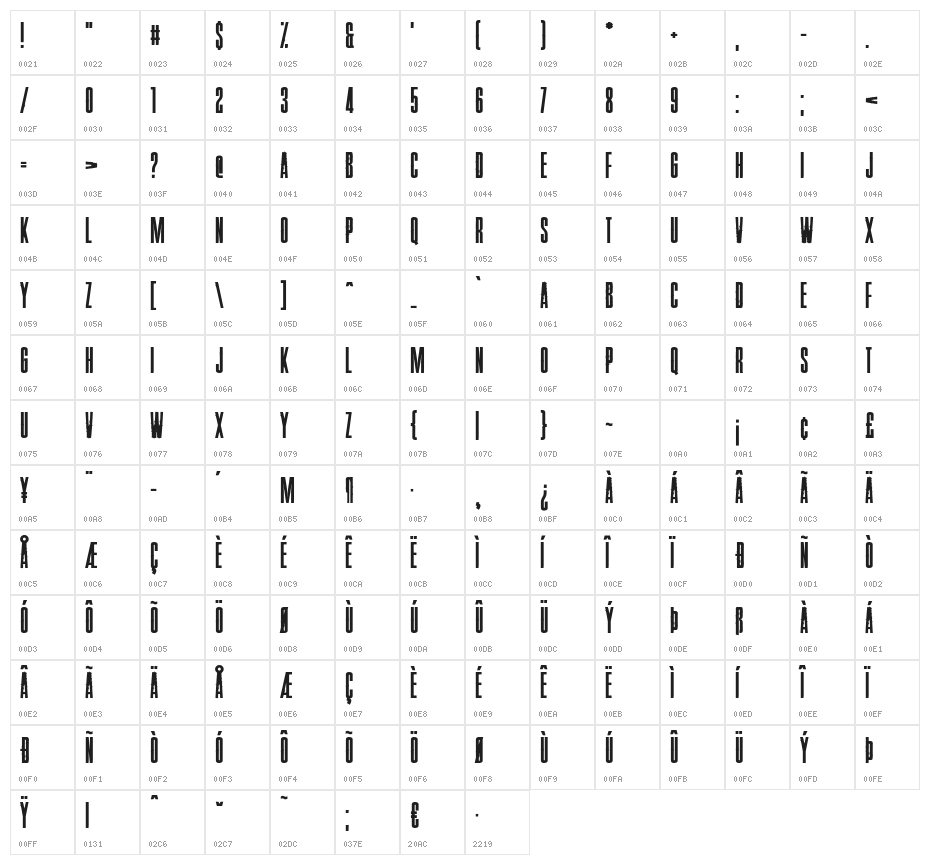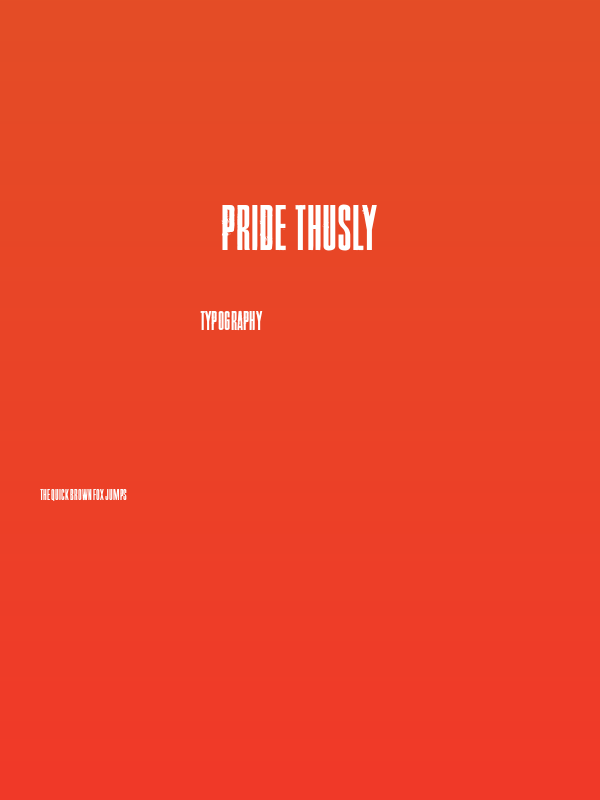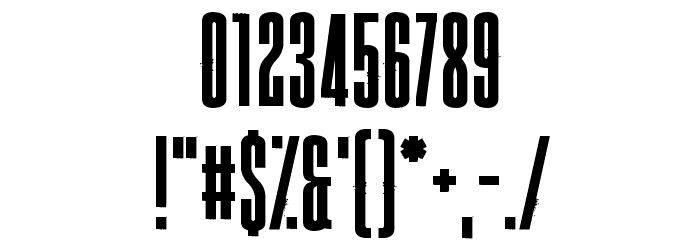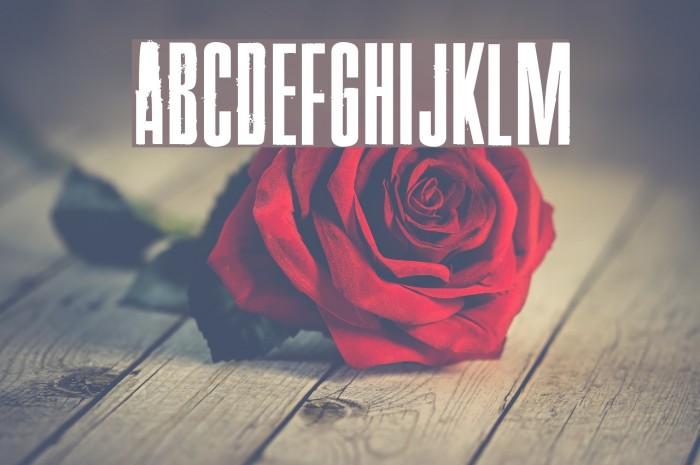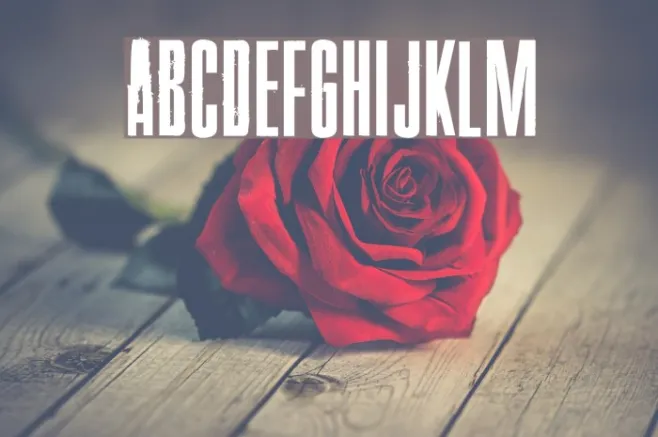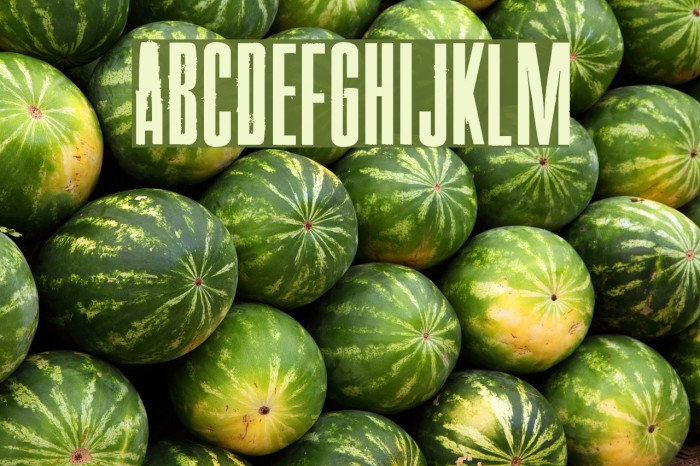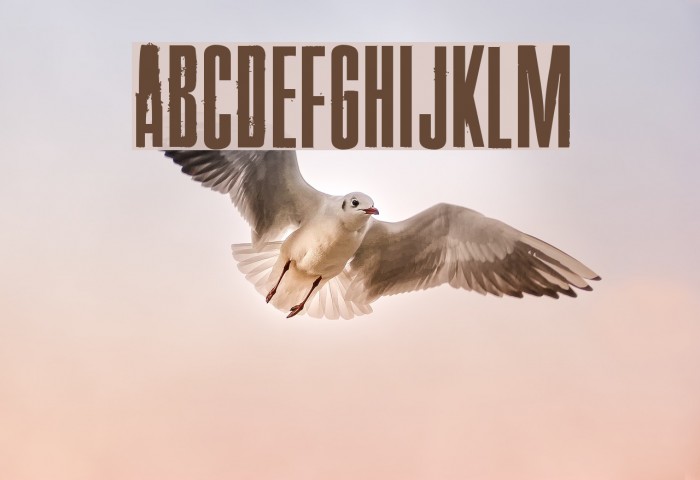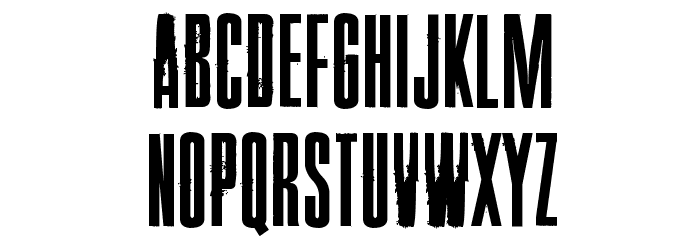
Pride Thusly Font
Pride Thusly Description
This font features a bold and distressed style, characterized by its tall, narrow letters with rough, textured edges. The uppercase letters dominate the design, giving it a strong and impactful presence. The numbers and special characters follow the same distressed aesthetic, maintaining consistency throughout. The font's unique appearance makes it stand out, with a gritty, urban feel that suggests a sense of rebellion or edginess. Its high contrast and condensed width contribute to its striking visual impact, making it suitable for attention-grabbing designs.
| Proposed Projects | Ideal for posters, album covers, streetwear branding, and edgy graphic designs. |